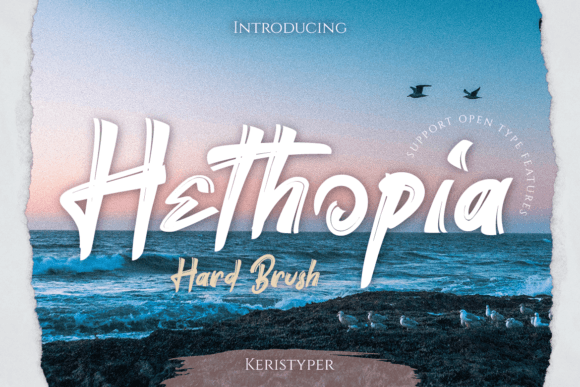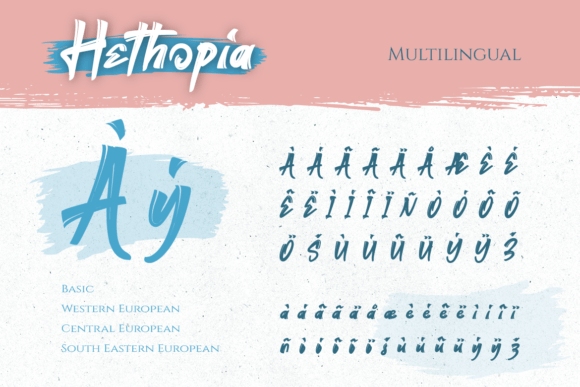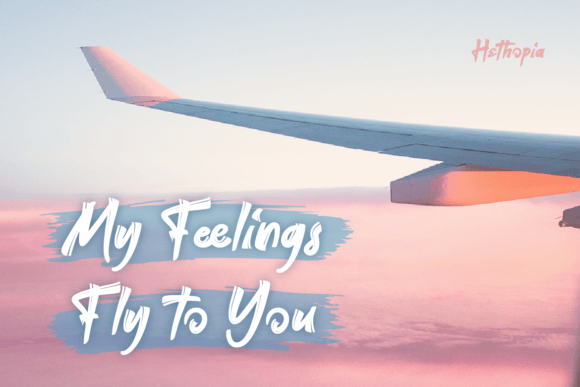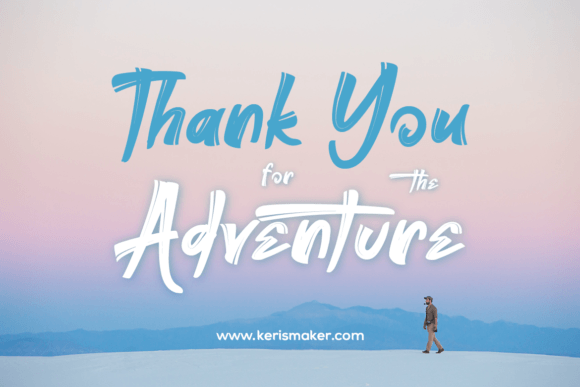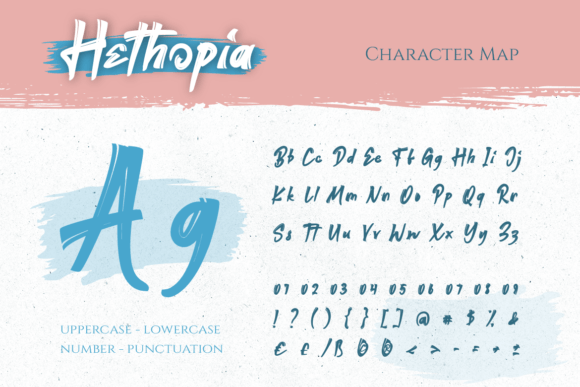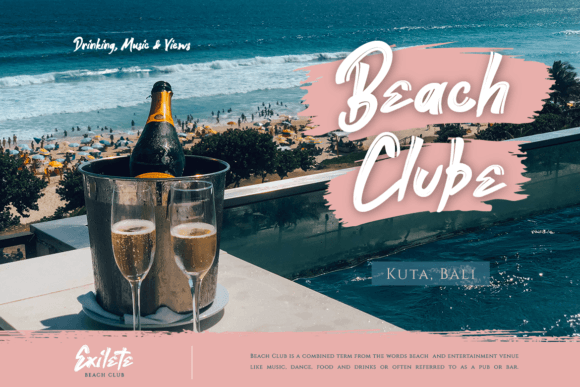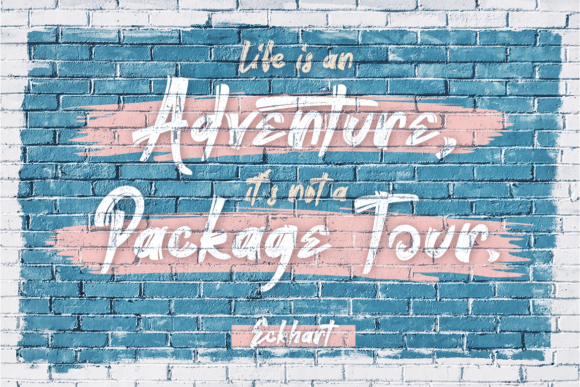
About Hethopia
Proudly present Hethopia a bold brush & grunge style sans display font. This font is good for logo design, Social media, Movie Titles, Books Titles, short text even long text letters, and good for your secondary text font with the script, sans, or serif.
**Featured:**
* Standard Uppercase & Lowercase
* Numeral & Punctuation
* Multilingual : ä ö ü Ä Ö Ü ß ¿ ¡
* Alternate & Ligature